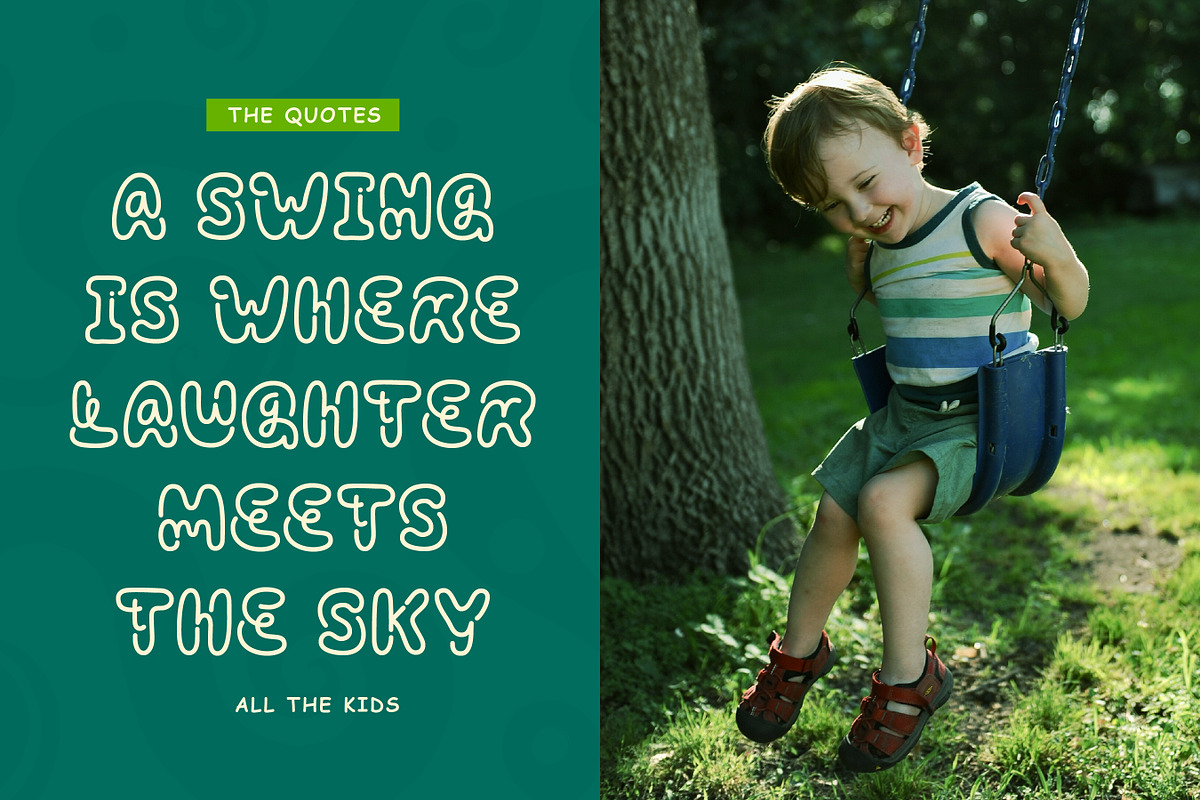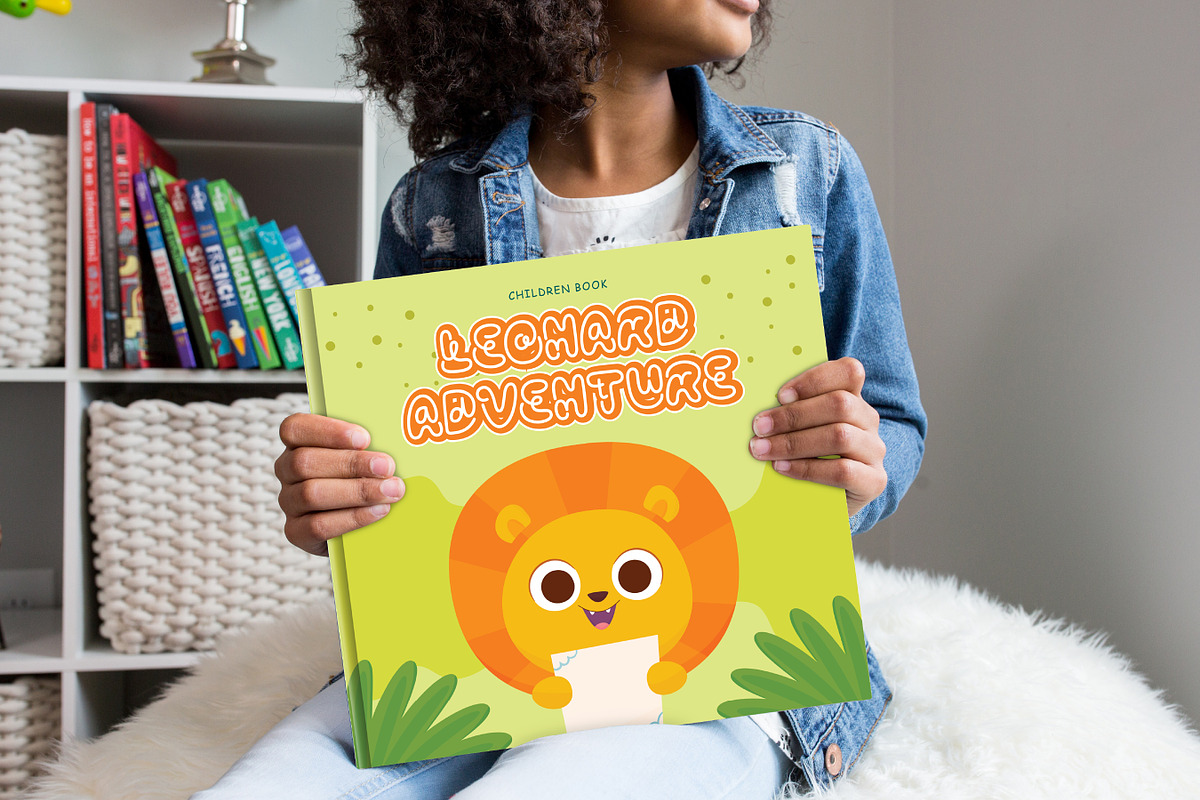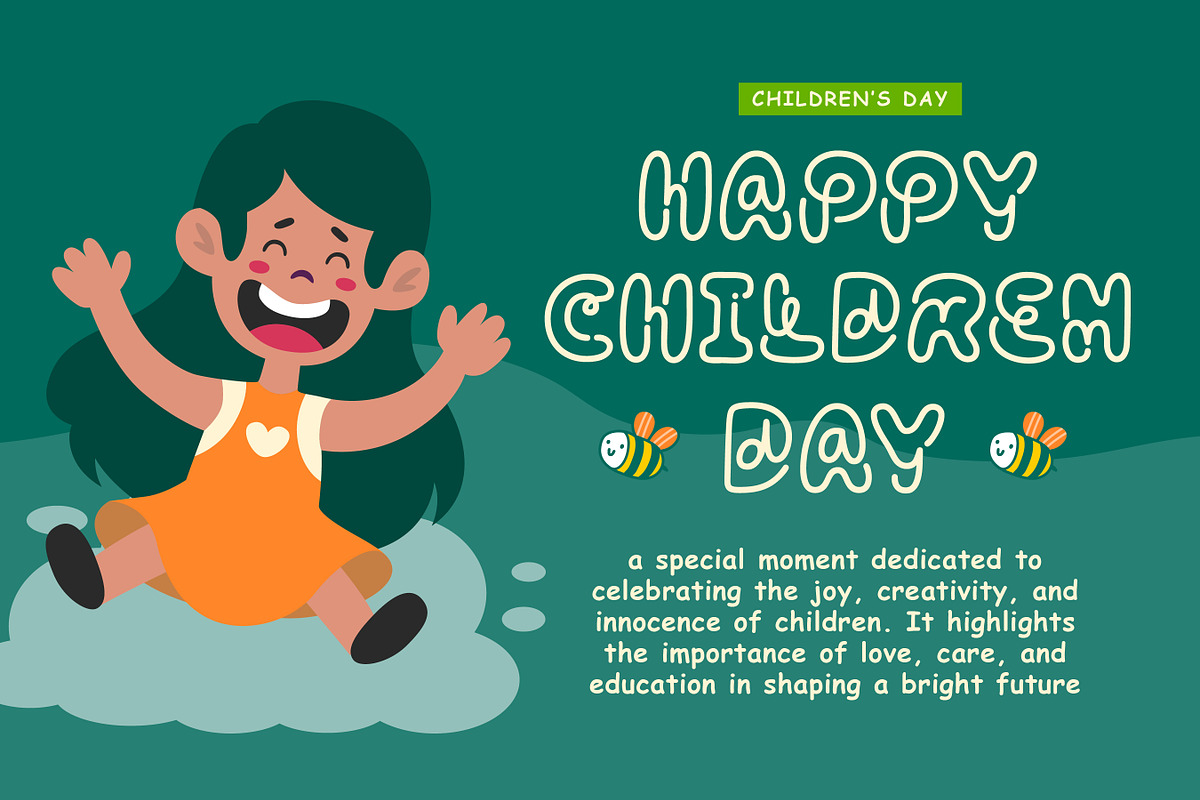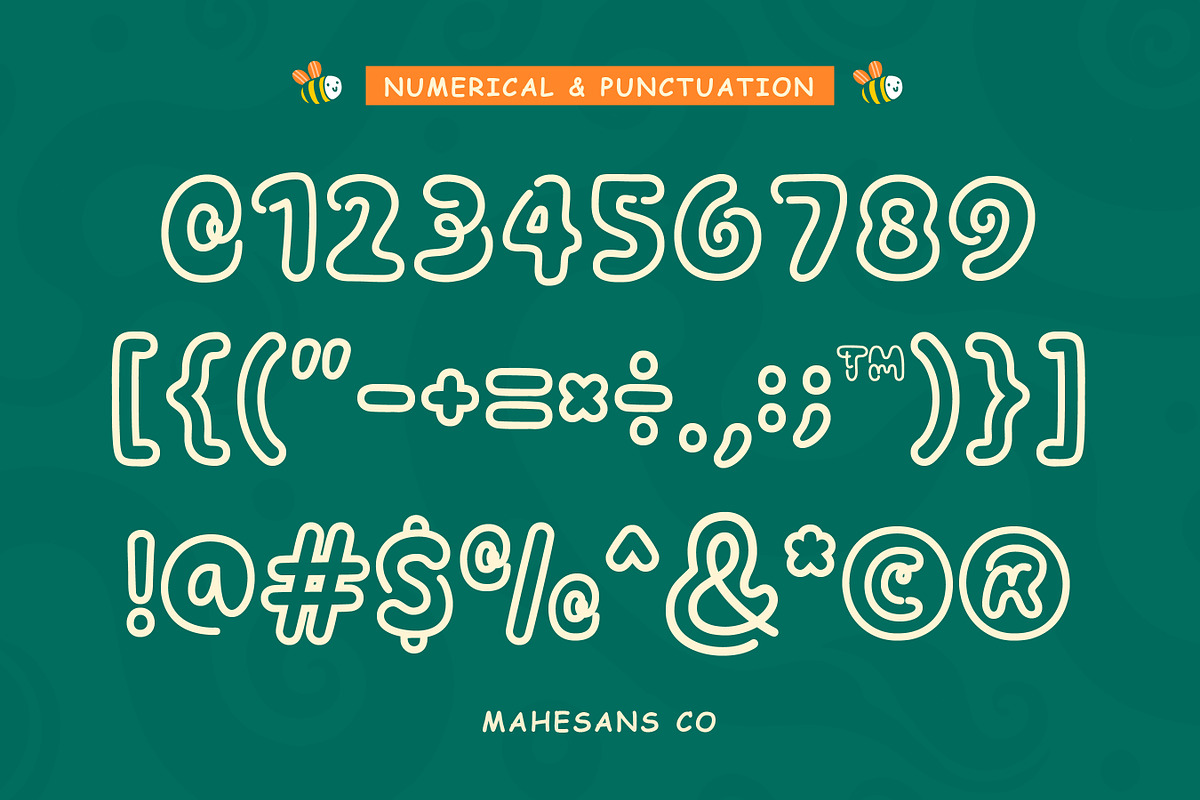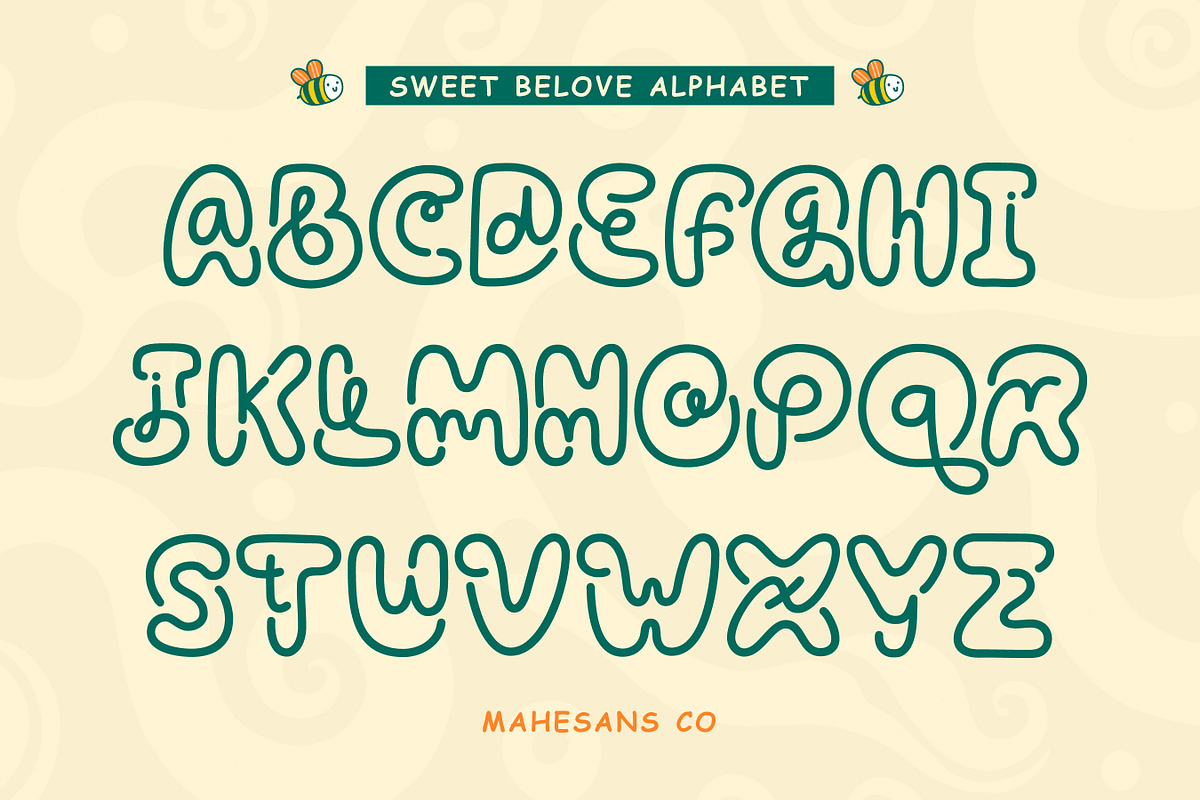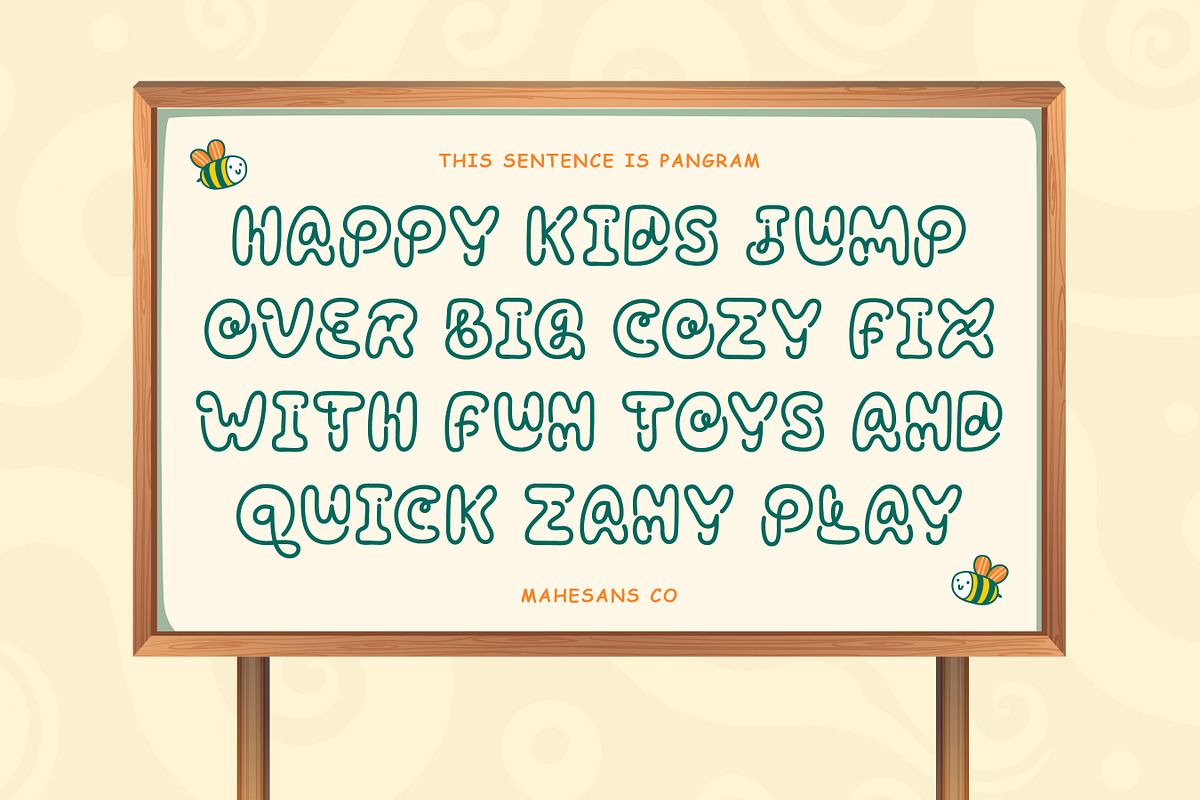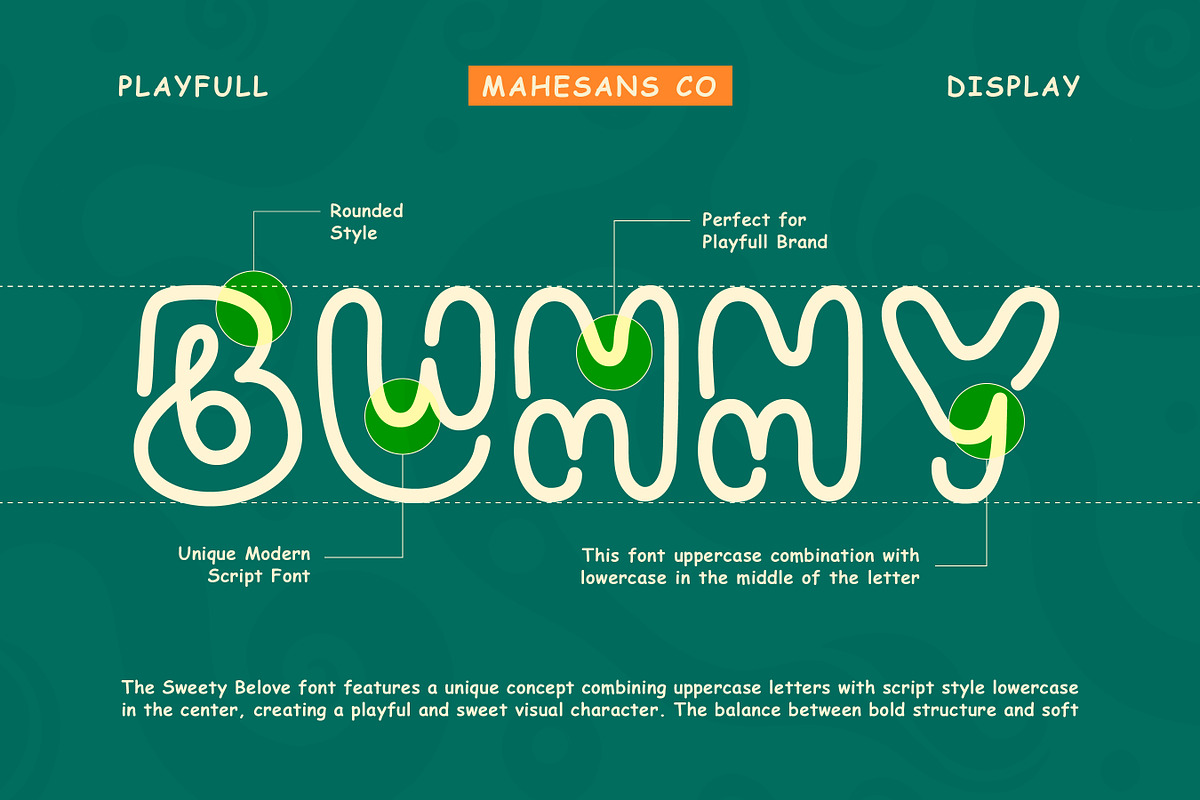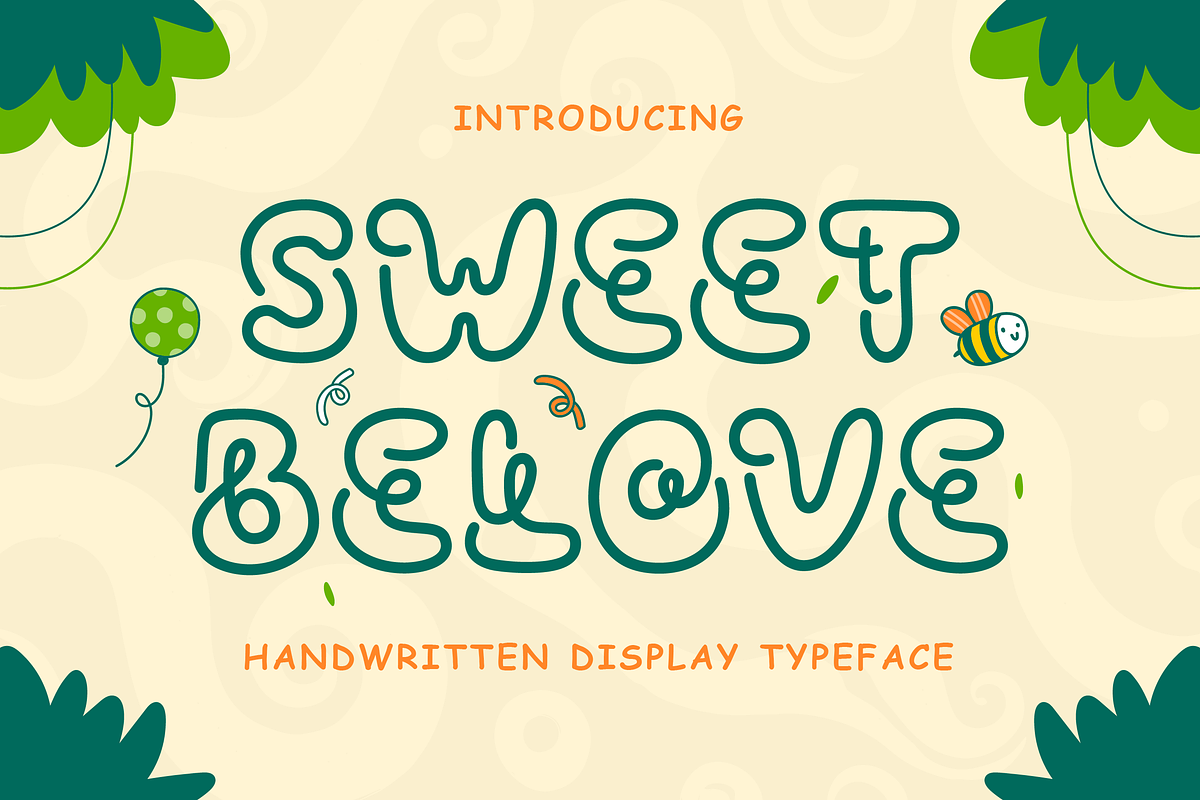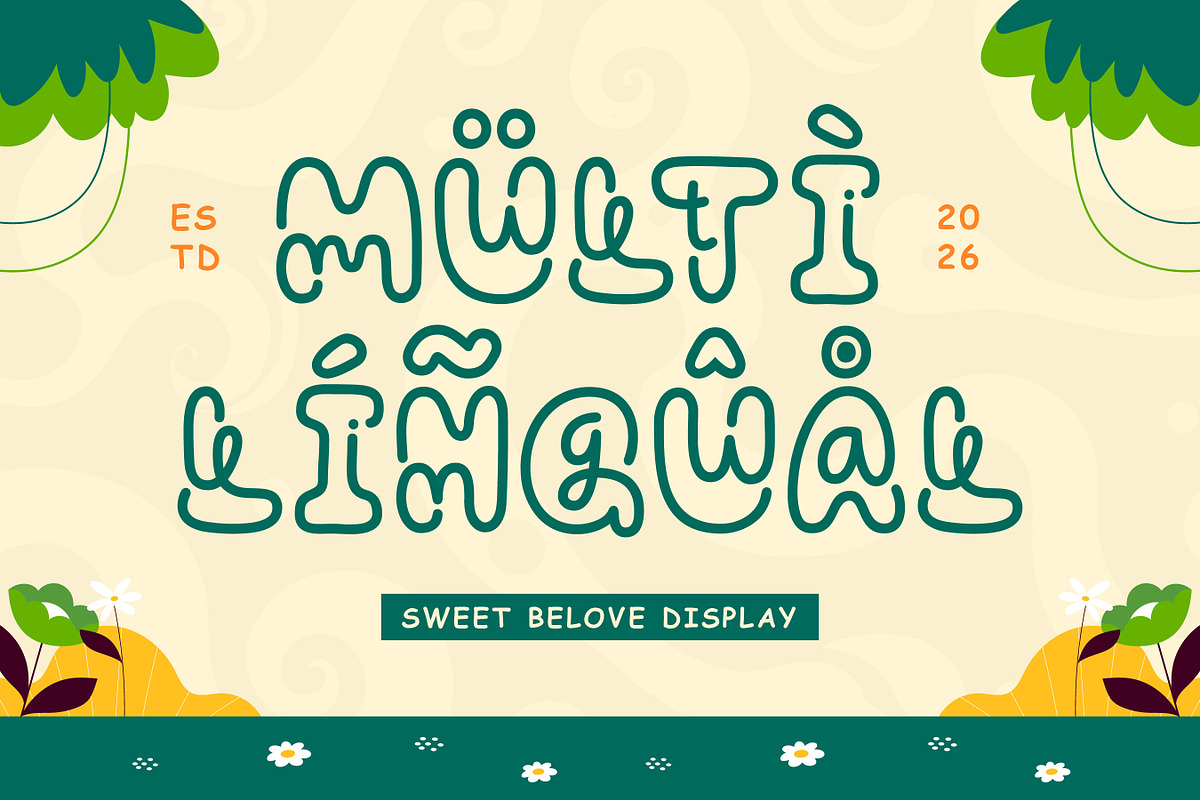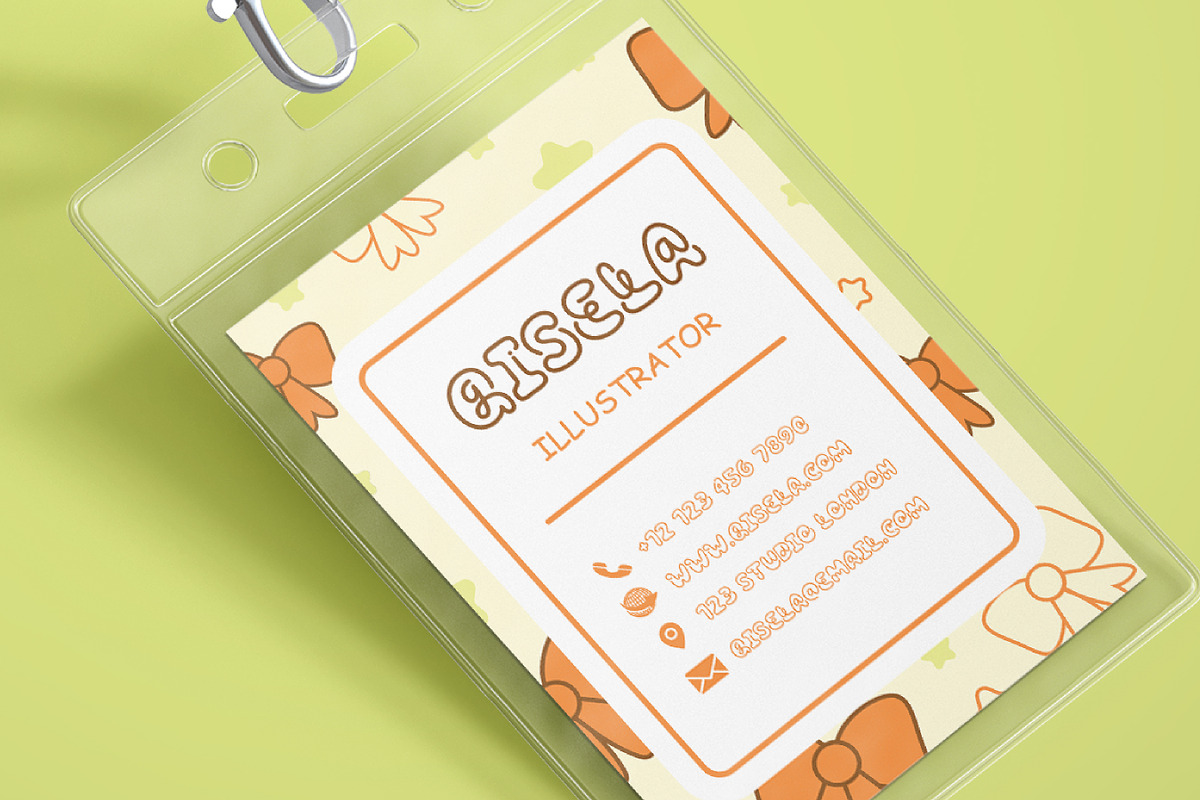
Sweet Belove – Playful Handwritten
Sweet Belove is a playful handwritten display font designed to bring joy, warmth, and a splash of mischief to your designs. Its rounded bubble strokes and unique letter construction create a fun, hand-drawn feel that instantly grabs attention without trying too hard. Each character combines uppercase structure with soft script-style curves, giving it a friendly personality that feels lively and approachable.
Perfect for children’s books, cute branding, packaging, birthday invitations, logos, social media posts, and anything that needs a dose of sweetness. This font is easy to use, highly legible, and built to shine in big, bold headlines.
If your project wants to look adorable but still confident, this font does the job.
Suitable for:
- Kids products
- Storybooks
- Playful branding
- Craft projects
- Stickers & quotes
- Children book
- All Uppercase
- Multilanguage